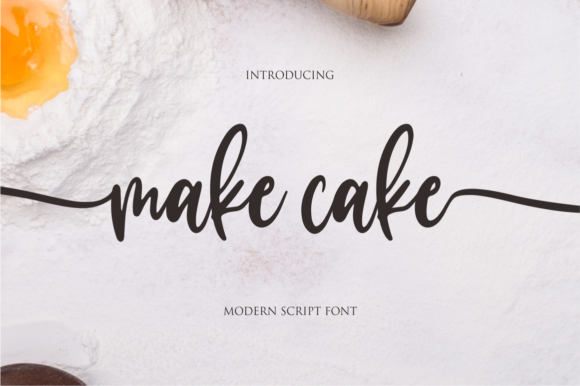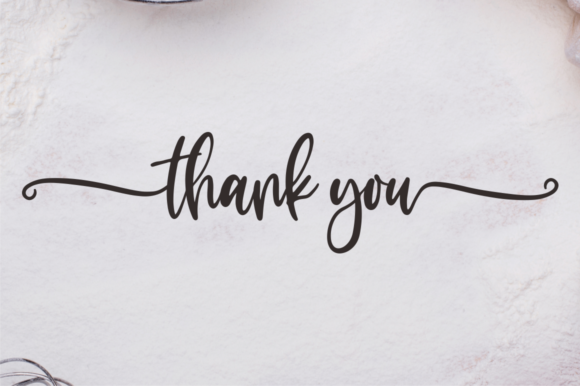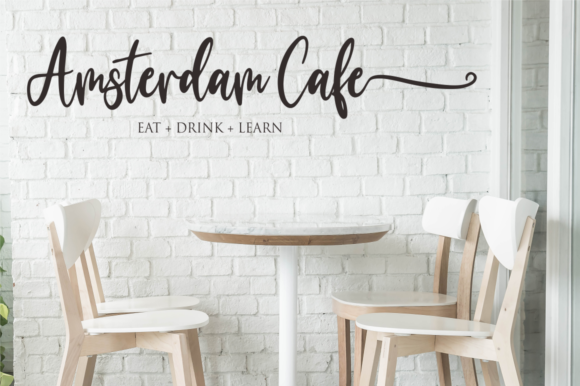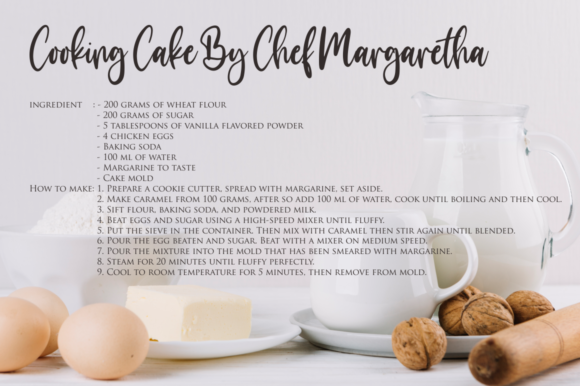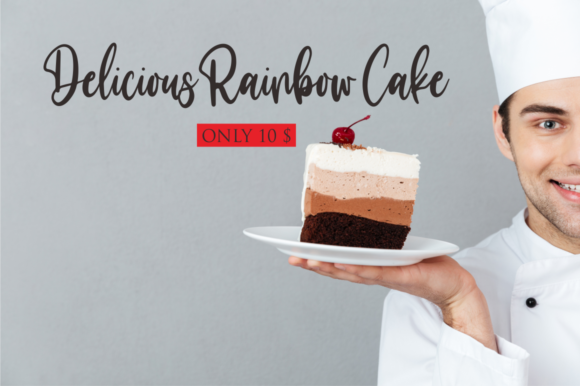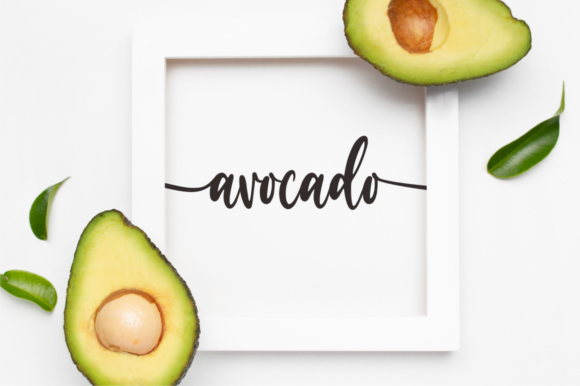
Make Cake Font
About Make Cake Font
Make Cake is a sweet and delicate handwritten font. Dainty and joyful, this font will be ideal for writing wedding invitations, cards or any other design that may need a romantic, personalized touch! Make Cake is PUA encoded which means you can access all of the glyphs and swashes with ease!